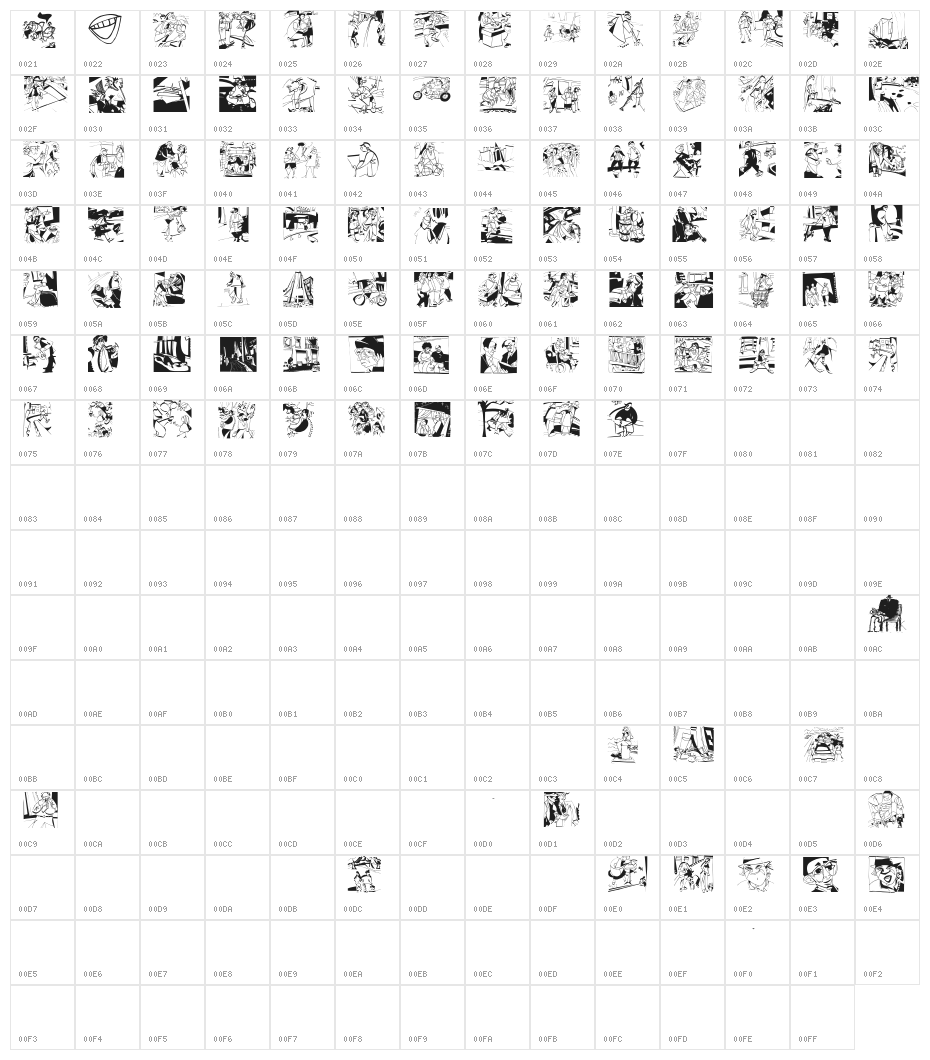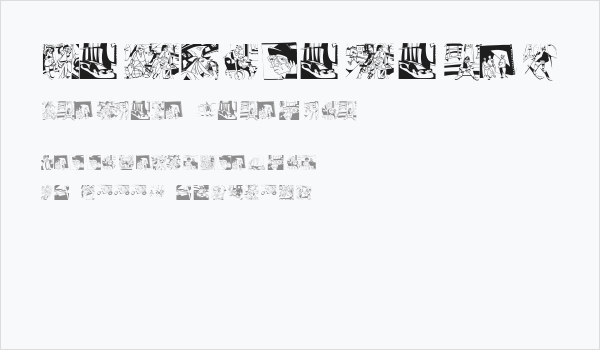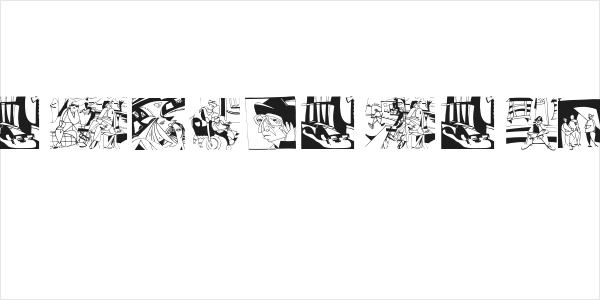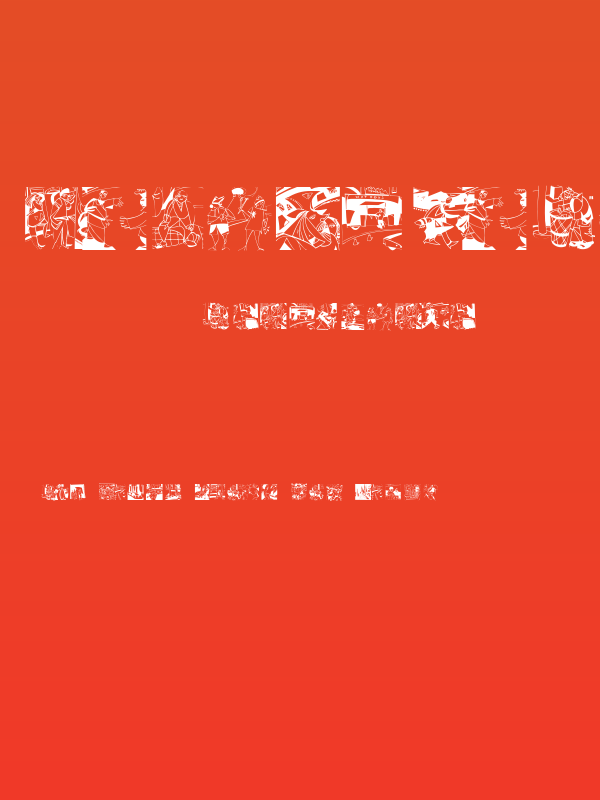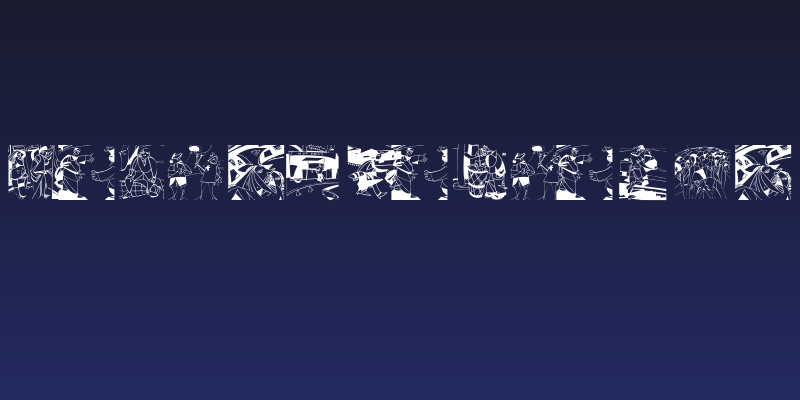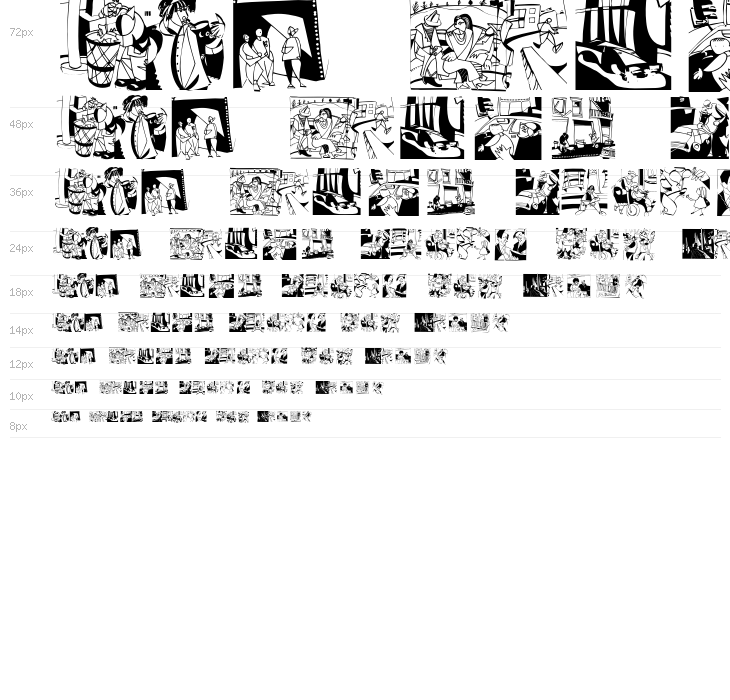
PiCaSolitaires Font
PiCaSolitaires Description
A decorative display font composed of hand-drawn cartoon illustrations within each character's shape, creating a playful and narrative-driven visual style. Each letter and symbol is filled with unique, detailed scenes, making the font highly illustrative and unconventional.
Overall StyleDecorative, Playful, Whimsical
Use CaseLogos, Posters, Headlines, Themed Graphics
Proposed ProjectsChildrenÒ€ℒs books, comic covers, playful posters, event invitations, themed branding, educational materials.